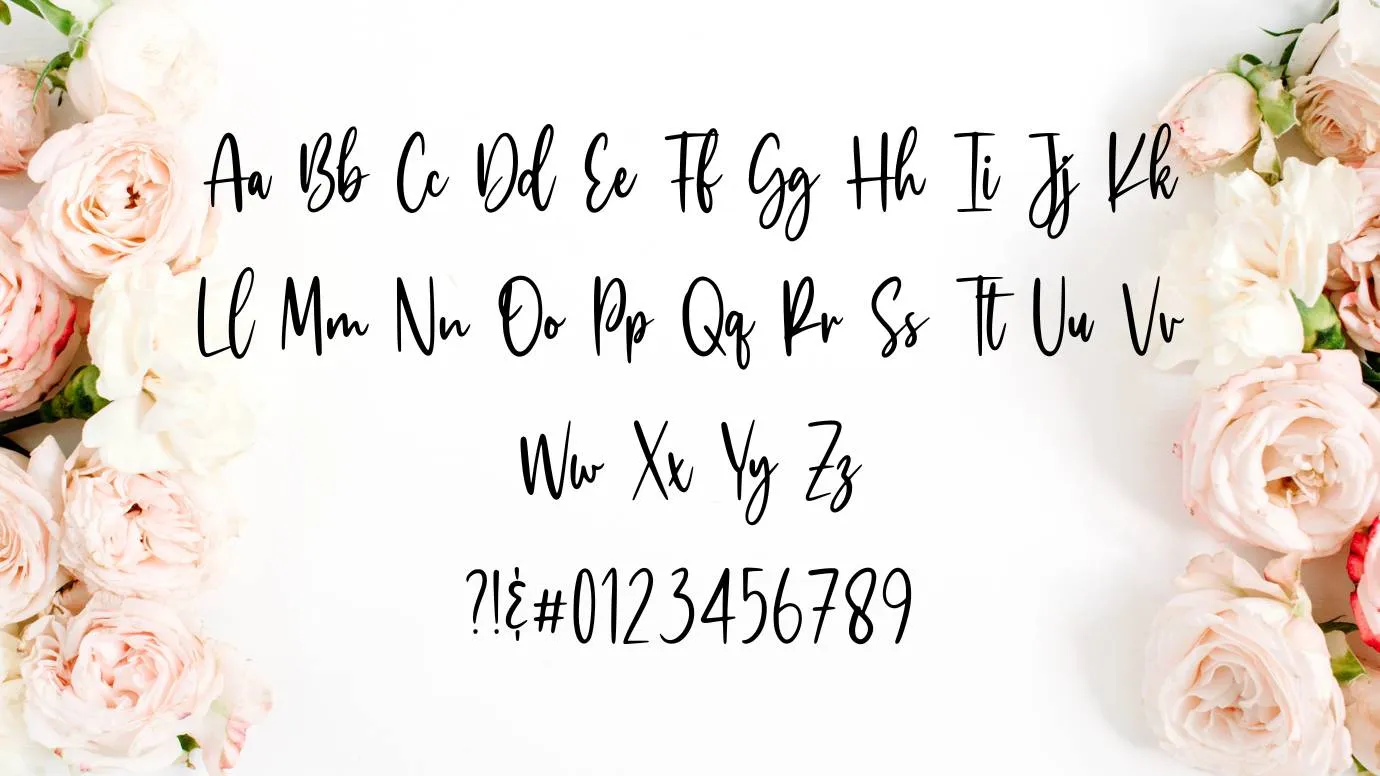
Billie Kimber is a very classy handwritten font which gives your projects a very elegant look. It was designed by Fachrizal Yusuf and manufactured by Allouse Studio.
Billie Kimber Font